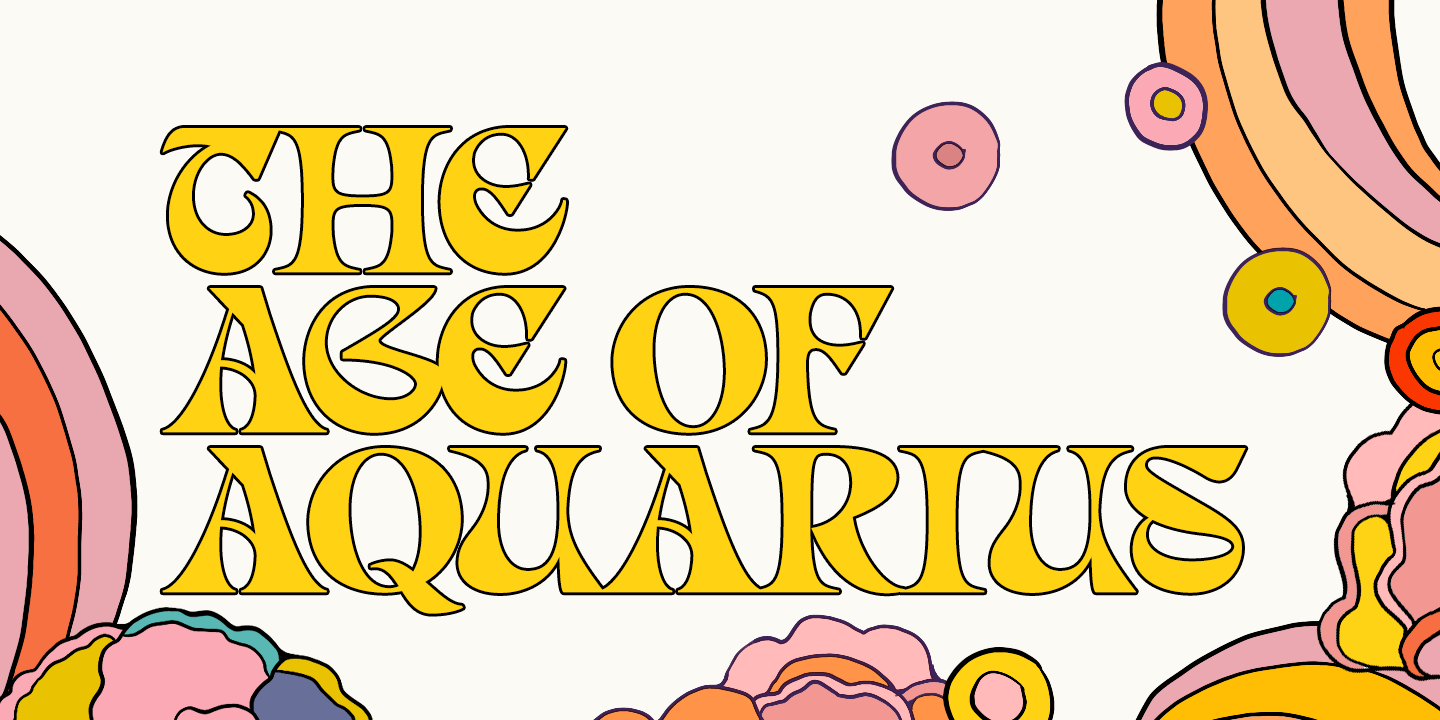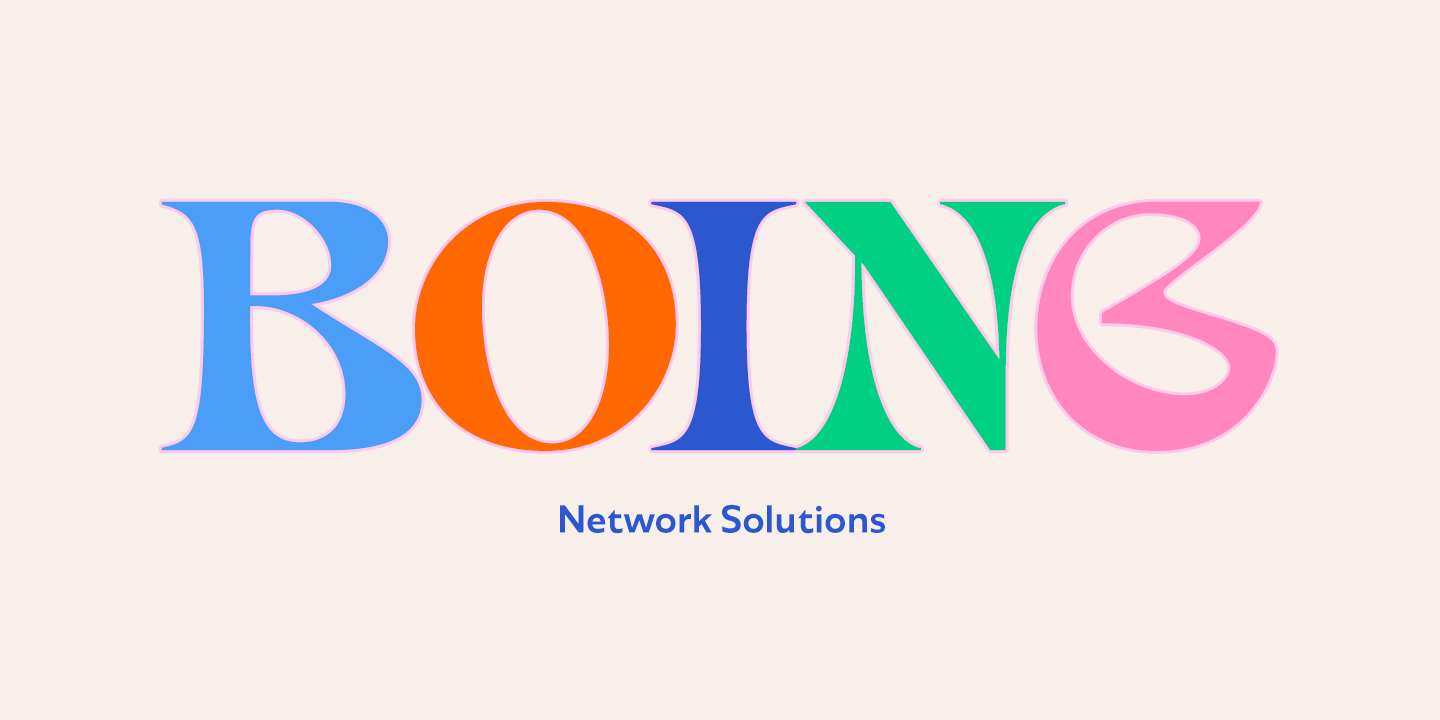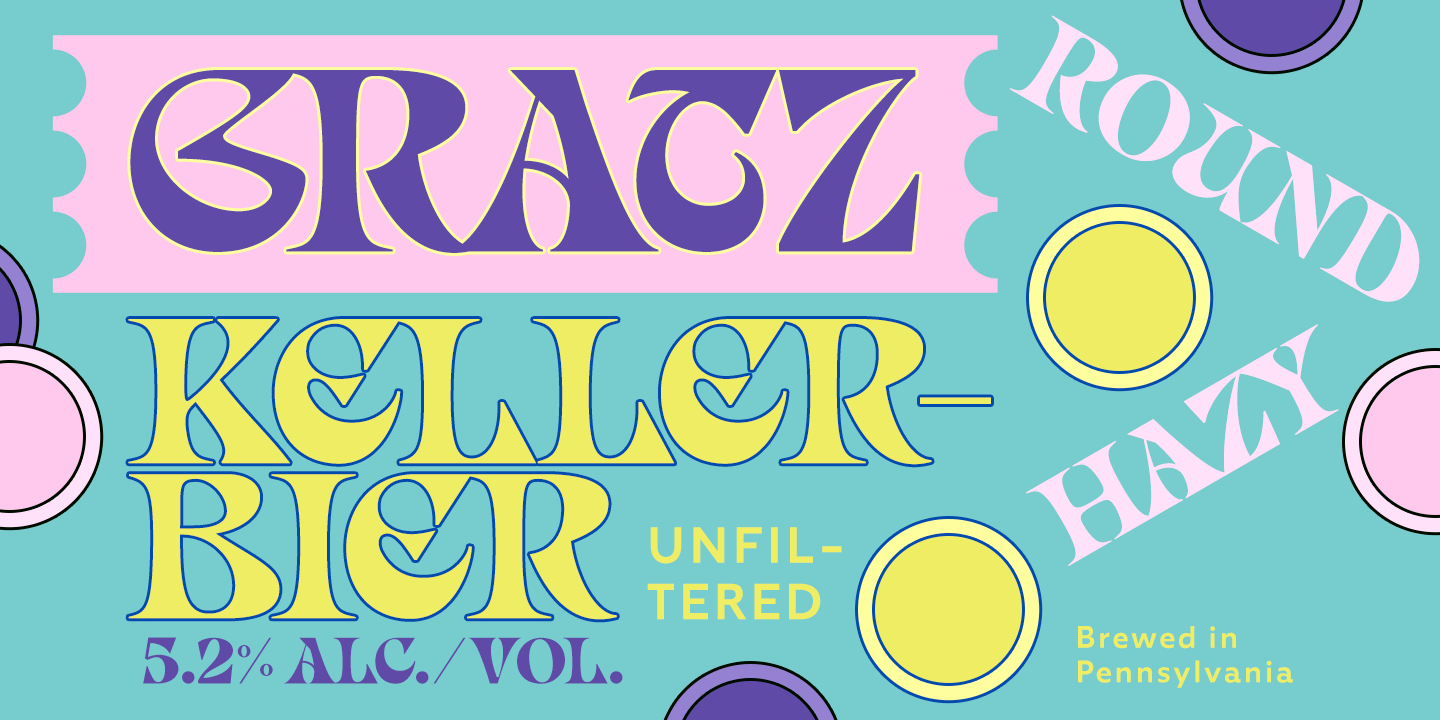
About Lotus Grove
Utilize the elegance of Art Nouveau in modern form with Lotus Grove. Lotus Grove is a high-contrast serif typeface with deep roots in Art Nouveau aesthetics. In contrast to its archetypal models, Lotus Grove boasts a clean-cut and smooth design, perfectly…